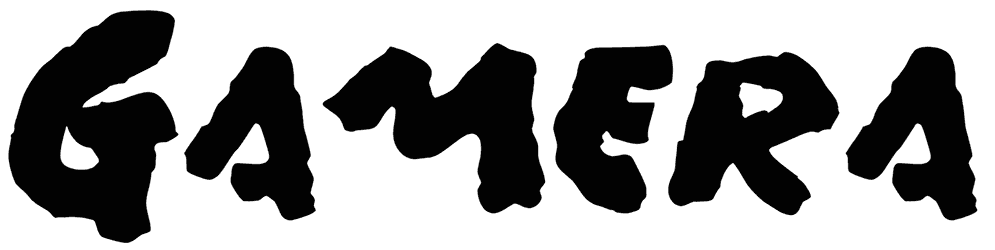
Gamera Font
If you’re in doubt to choose a font for your Halloween products this year and haven’t decided about it yet, look at Gamera. This horror font is a tool that can work very well in evoking emotions and conveying an extraterrestrial feeling to the viewer.
Therefore, as a new player in the game of excitement and fear, it can be very successful. Gamera doesn’t support lowercase letters, but it’s a good choice for designing book covers, movie posters, and children’s products.